Great graphic design is powered by great font selection. But picking great fonts is a challenge most people. Luckily, Canva has made adding great fonts to your designs much easier. In this tutorial, our team of design experts will cover the best bohemian fonts in Canva.
What Are Bohemian Fonts (Boho Fonts)?
Bohemian-themed fonts often have characteristics that evoke a sense of free-spiritedness, creativity, and a carefree lifestyle, such as:
- Handwritten or script styles: Bohemian fonts often feature handwritten or script styles that give them a personal and authentic feel.
- Bold and playful: Many Bohemian fonts have a bold and playful feel, which can make them ideal for headlines and logos.
- Whimsical details: These fonts may also feature whimsical details, such as swirls, curls, or decorative elements inspired by nature, like leaves or flowers.
- Sans-serif or serif styles: Bohemian fonts can come in a variety of styles, including sans-serif and serif styles, depending on the designer’s intention.
- Vintage or distressed appearance: Some Bohemian fonts may also have a vintage or distressed appearance, which can add to their sense of nostalgia and authenticity.
Best Canva Bohemian Fonts
1. TAN Mon Cheri
TAN Mon Cheri is is an elegant sans serif font. The thin and minimalist strokes evoke a sense a of calm and harmony.
2. Arsenica
Arsenica is a display font that features a bold and expressive design, with letters that appear hand-drawn. It was designed by Indonesian graphic designer, Em Nazar. The font has a fun and playful style, with irregular stroke widths and a slightly distressed texture. The letterforms are somewhat condensed, with wide loops and exaggerated terminals that give it a unique character.
3. Pacifico
Pacifico is a cursive font that is inspired by the handwriting of the 1950s and 1960s. It features fluid, flowing lines and has a retro, nostalgic feel. It is often used in designs that evoke a sense of vintage or retro style.
4. Genty
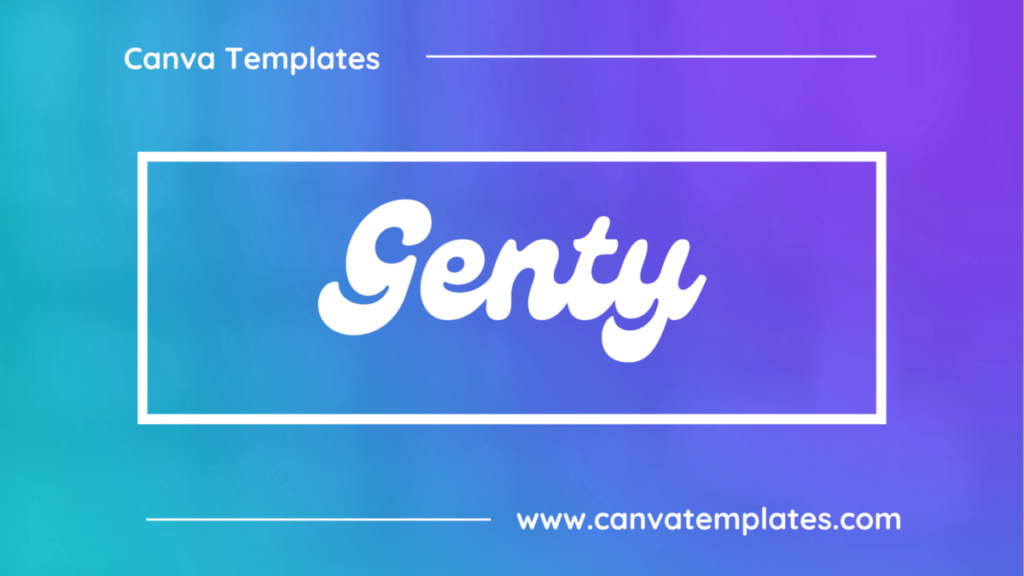
Genty is a sans-serif font that features a clean and modern design, with condensed letterforms and distinct serifs. It was designed by Indonesian graphic designer, Agga Swistblnk. The font has a strong geometric structure, with letterforms that are narrow and tall. The serifs on each letter add a touch of elegance and help to distinguish it from other sans-serif fonts. The stroke widths are consistent and uniform, which gives the font a polished and professional look.
5. Yesteryear
Yesteryear is a vintage-style font that has a classic, retro design. It is a serif font that has a hand-drawn feel, giving it a unique and personal touch. The letters have a slightly distressed look, which adds to the vintage vibe of the font.
6. Dreaming Outloud Sans
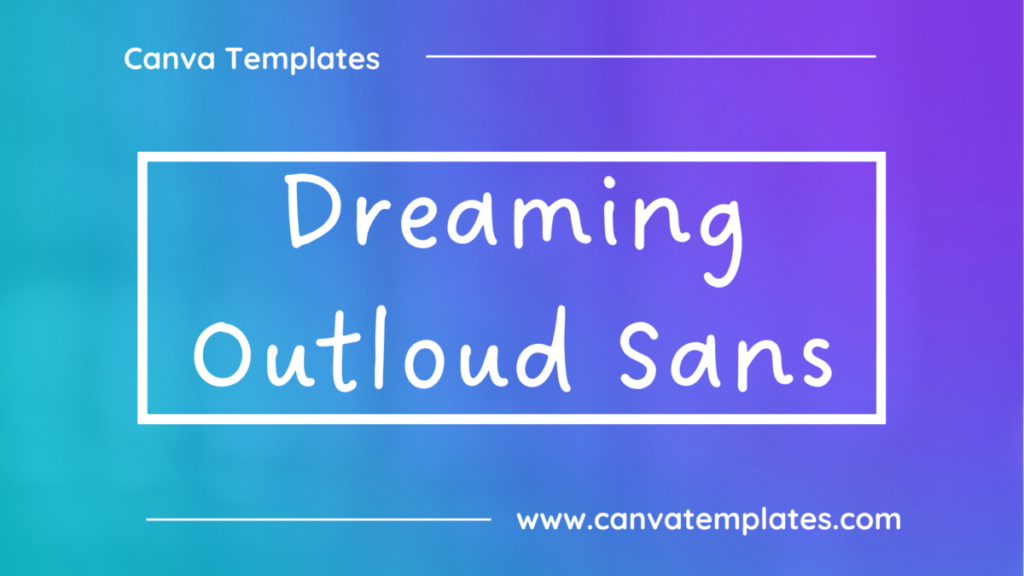
Dreaming Outloud Sans is a clean and modern sans-serif font with a slightly whimsical and playful design. Its versatile and contemporary appearance makes it suitable for a wide range of applications, including branding, web design, and editorial content.
7. Mak
Mak is a simple and elegant sans-serif font that is characterized by its clean lines and minimalistic design. It is a versatile font that can be used in a wide range of applications, from logos and branding to body text.
8. Reborn
Reborn is a bold and expressive display font with a distressed, hand-drawn style. It features uneven, jagged lines and a grungy, textured appearance that is perfect for designs with a rebellious, edgy feel.
9. Just Believe
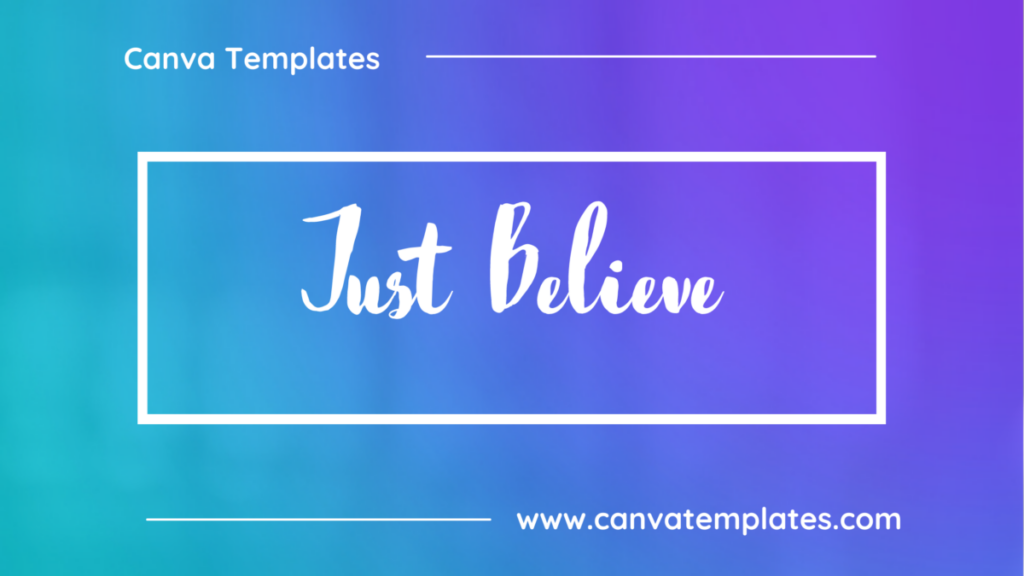
Just Believe is a whimsical, hand-drawn script font with a casual and friendly vibe. Its organic lines and irregular shapes make it ideal for projects that require a more informal touch, such as greeting cards, invitations, or logos.
10. New Sun Playful
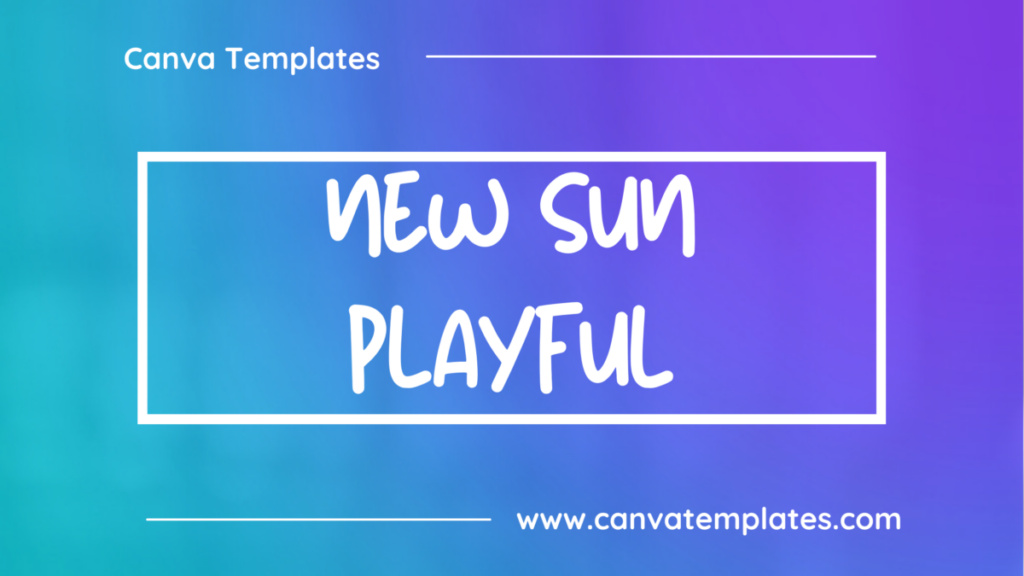
New Sun Playful is a cheerful, hand-drawn font with a casual and friendly vibe. Its organic lines and irregular shapes make it ideal for projects that require a more informal touch, such as greeting cards, invitations, or logos.